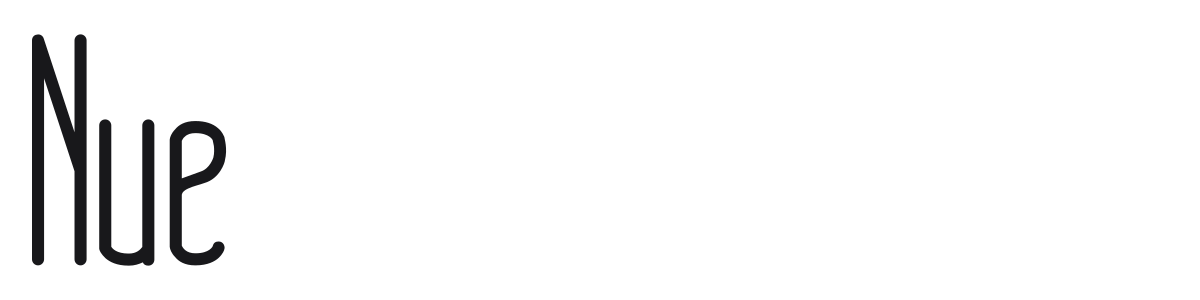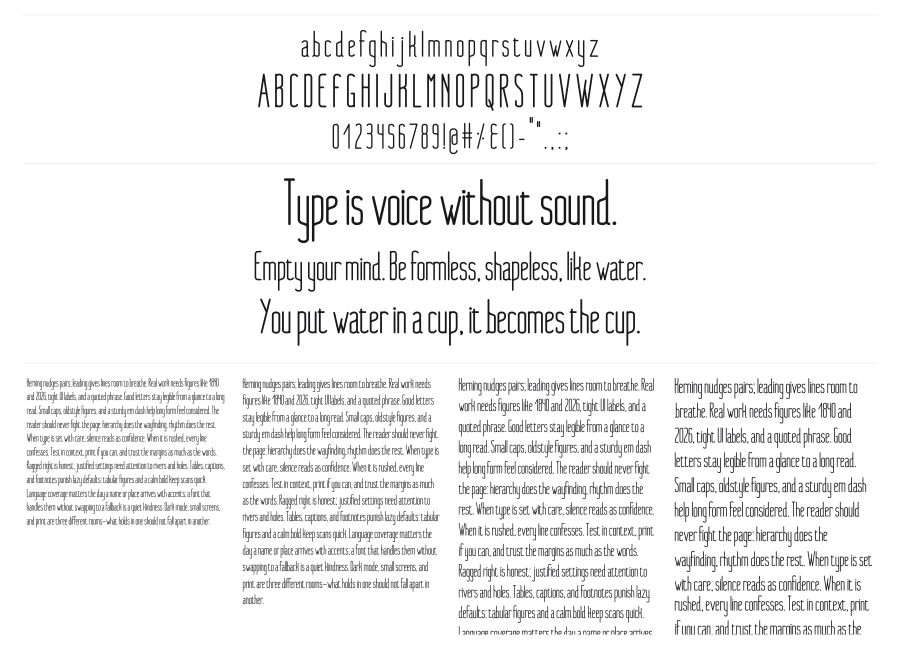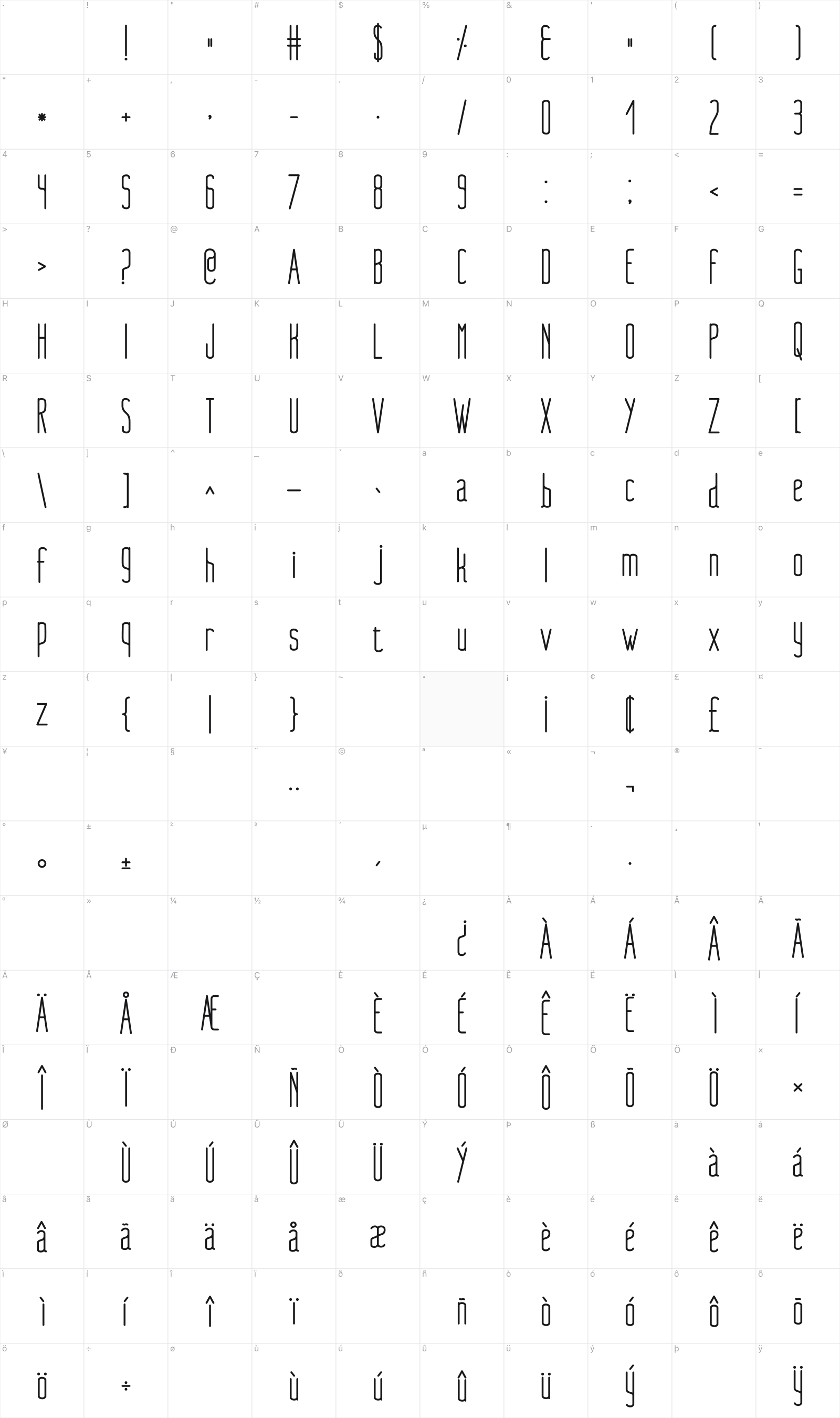
Nue
Nue is a tall, condensed geometric sans-serif with a delicate light weight and near-monoweight strokes. Its elongated proportions and minimal stroke variation give it a quiet elegance that works well in fashion and editorial contexts. The design is restrained without being cold.